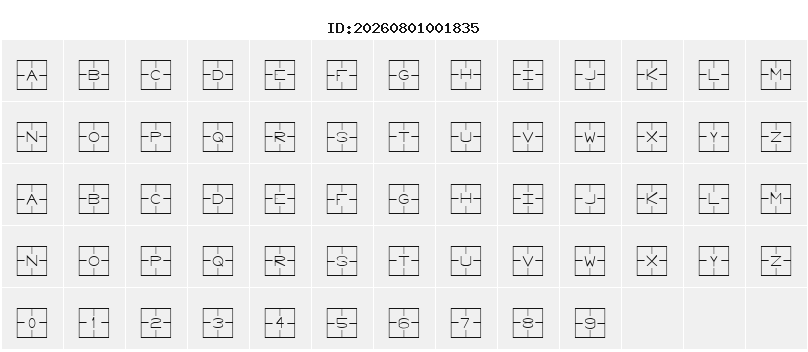
• Font Name: Laser Systems
About Laser Systems.ttf
Laser Systems.ttf is a modern, elegant sans-serif font designed for ultimate readability and visual harmony. Perfect for branding, headlines, web design, and print materials.